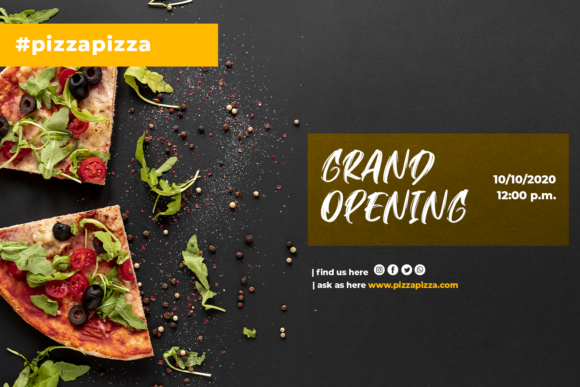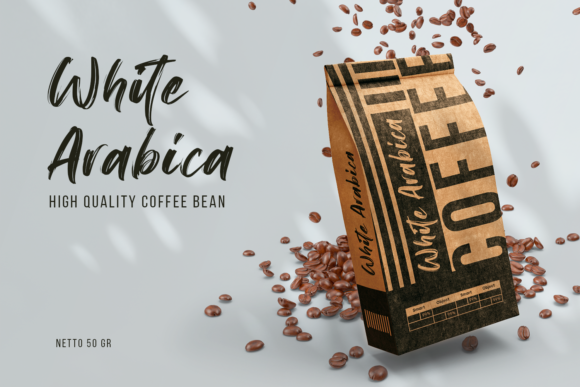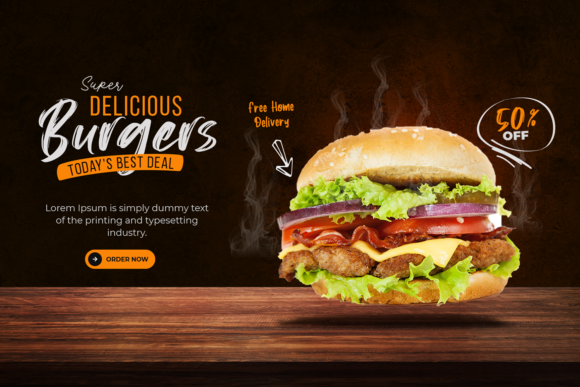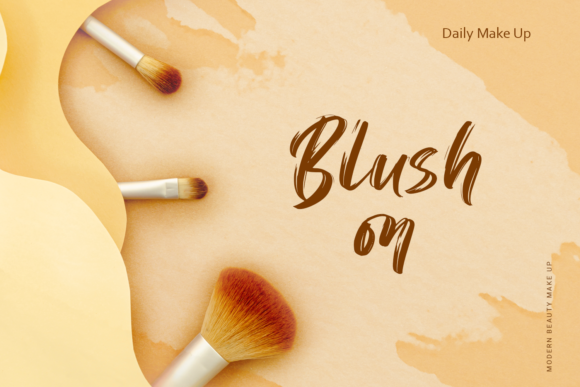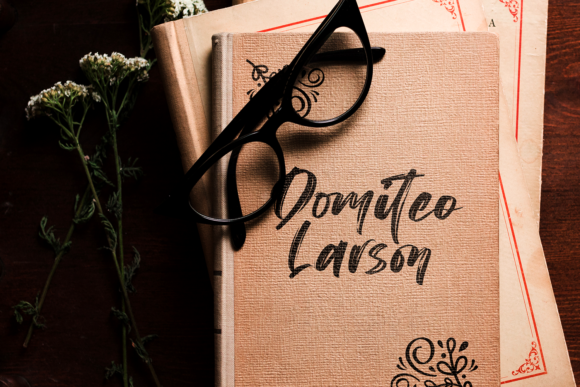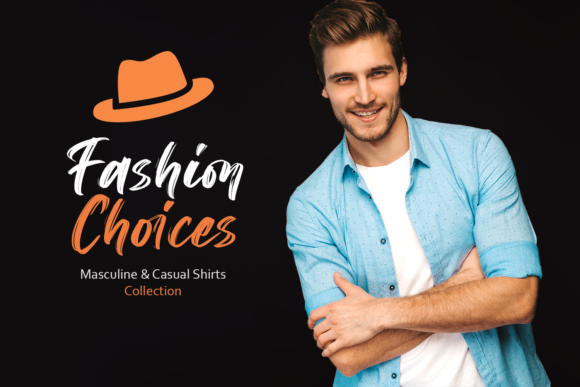
Introduction to Konichiwa Font
Have you ever stumbled upon a beautiful handwritten font that instantly makes you feel inspired to create something special? For designers, discovering a high-quality font like the Konichiwa Font can be a game-changer. Its flowing and elegant style is perfect for adding a personal touch to any creative project.
Imagine being able to craft gorgeous wedding invitations, beautiful stationery art, or eye-catching social media posts with a font that’s both versatile and visually appealing. The Konichiwa Font is exactly that – a design resource that’s waiting to be explored and utilized to bring your creative ideas to life.
With its distinct brush pen-inspired design, the Konichiwa Font is sure to make a lasting impression. Whether you’re working on a free download project or a paid commission, this font is a valuable addition to any designer’s toolkit. So, let’s dive into the world of the Konichiwa Font and discover all its creative possibilities.
Key Features of Konichiwa Font
- High-quality, professional design perfect for various creative projects, including graphic design, digital art, and more.
- Unique characteristics: The Konichiwa Font features a unique, hand-drawn style with a mix of modern and traditional elements, adding a touch of sophistication and elegance to any design.
Honest Review: Konichiwa Font
As a designer, I’m always on the lookout for high-quality design resources to elevate my creative projects. Recently, I stumbled upon the Konichiwa Font, and I must say it’s been a delightful discovery.
Here’s what works well: ✨ Unique Typography – The font’s playful, cursive design is perfect for adding a touch of whimsy to my designs. ✨ High-Quality Vector Graphics – The font files are crisp and clean, making them ideal for both digital and print projects. ✨ Free Download – The best part? It’s completely free to download, making it an excellent resource for designers on a budget.
However, there are a few limitations: ⚠️ Transparent Background – While the font itself is amazing, the transparent background can be a bit tricky to work with, especially when designing for print materials. ⚠️ Limited Character Set – The font only includes a limited set of characters, which might not be suitable for projects that require a wide range of symbols or languages.
Overall, I’m impressed with the Konichiwa Font, and I’m excited to incorporate it into my future creative projects. With a little patience and creativity, the limitations can be overcome, making it a valuable addition to any designer’s toolkit.
Experiment with different font sizes and styles to create a visually appealing design. Combine the Konichiwa Font with other design elements to create a unique and creative project.
Common Use Cases for Konichiwa Font
The Konichiwa Font is suitable for a wide range of creative projects, including graphic designs, presentations, and documents. Its high-quality design and transparent background make it an excellent choice for designers and non-designers alike.
Q: Is the Konichiwa Font suitable for print or digital designs?
The Konichiwa Font is a versatile design resource that can be used in both print and digital designs. Its high-quality design and transparent background make it an ideal choice for various creative projects, from business cards and brochures to websites and social media graphics.